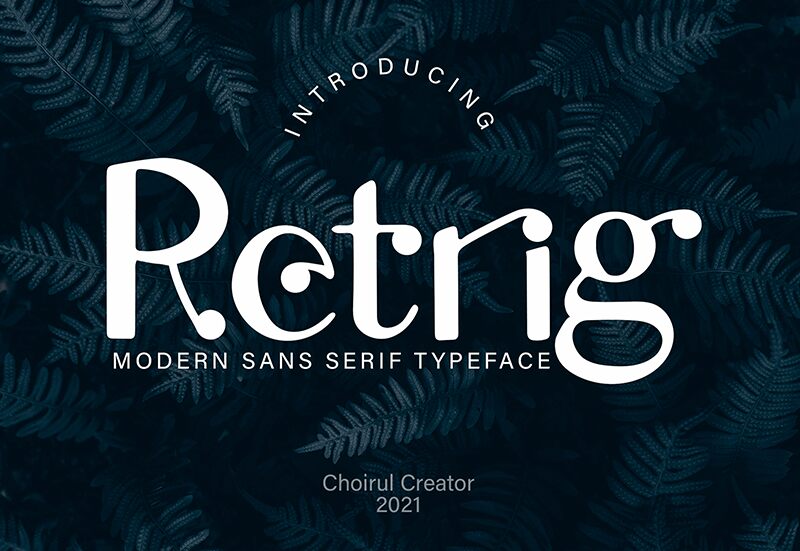
Introducing Retrig - the modern font designed by Ngefont Studio. With its clean lines and contemporary style, Retrig is perfect for any project that requires a sleek and sophisticated look. Its bold and striking appearance will make your headlines pop, while its subtle curves and minimalist design are perfect for body text. Whether you're creating a professional presentation or a stylish website, Retrig is the font that can take your project to the next level. From branding materials to social media graphics, this versatile typeface is suitable for a wide range of projects. So go ahead and let Retrig elevate your designs to new heights!
Retrig — Schriftpräsentation
Retrig by Ngefont Studio